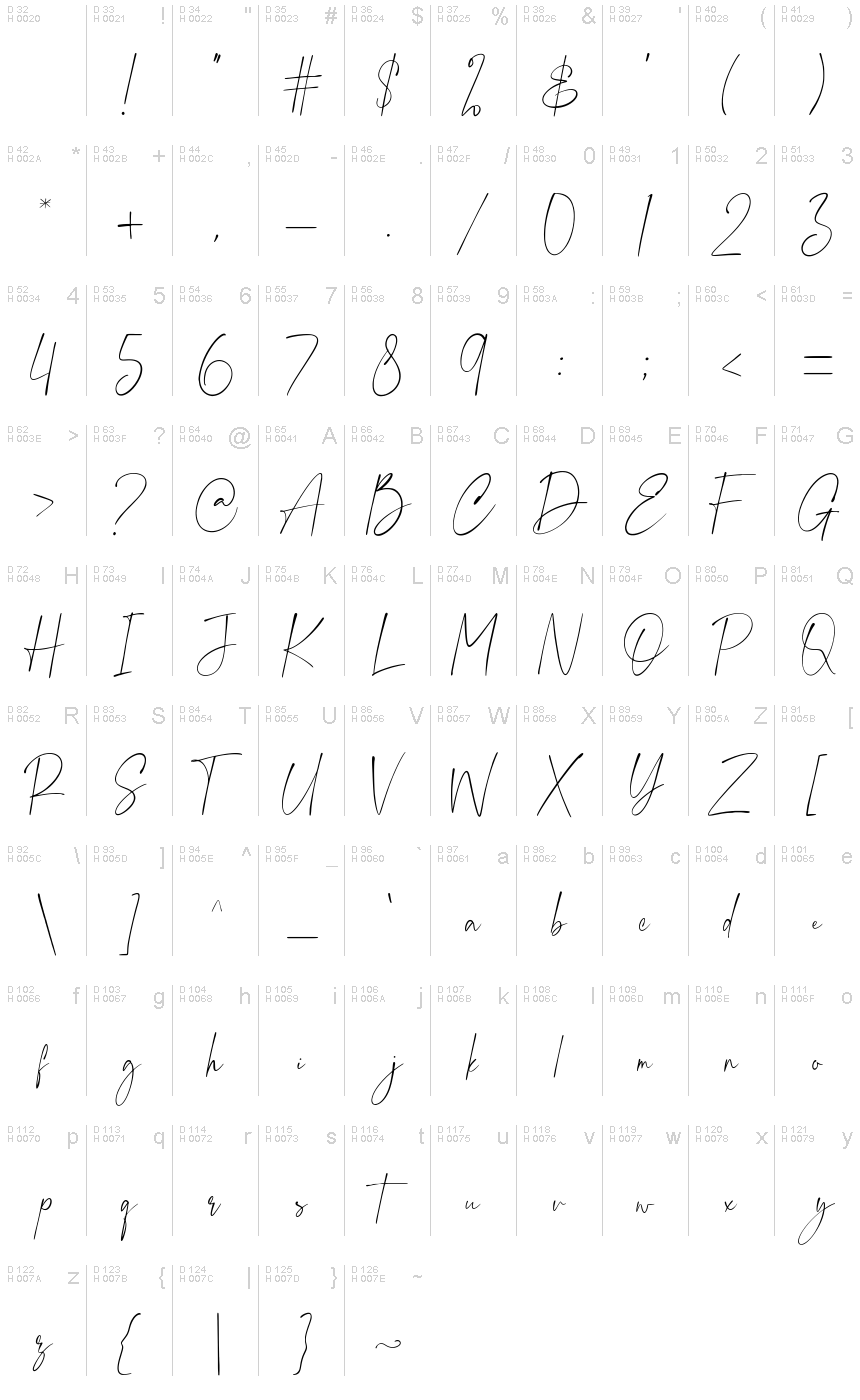
Southminister
Southminister, crafted by Alpaprana Studio, is an elegant handwritten font that exudes a sense of personal touch and sophistication. Its delicate strokes and fluid continuity give it a lightweight charm that's reminiscent of fine calligraphy.
The style radiates warmth and authenticity, making it perfect for invitations, branding, and advertising where a human touch is desired. This font finds its strength in its versatility—equally at home in formal settings as it is in more casual ones. Southminister offers designers the opportunity to infuse their work with intimacy and grace while maintaining legibility and impact.